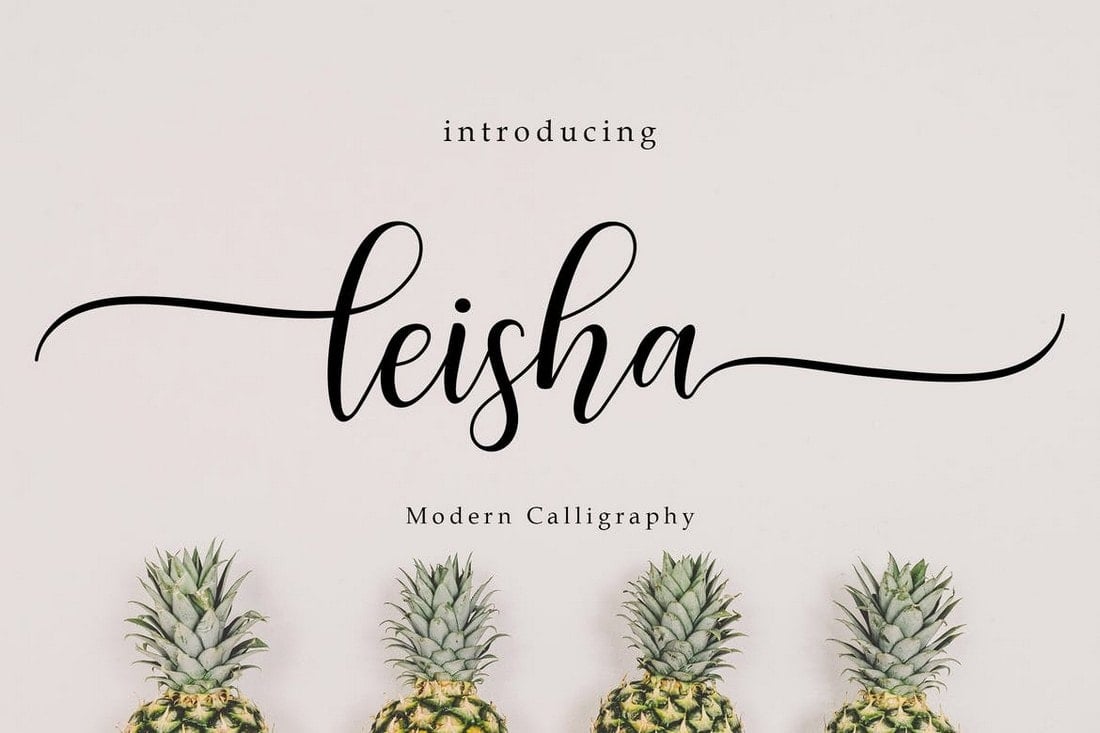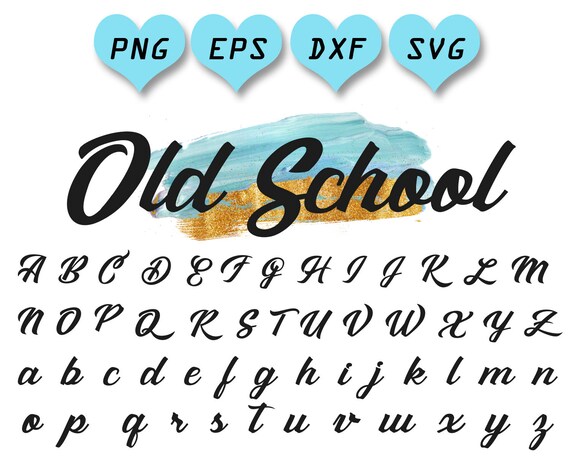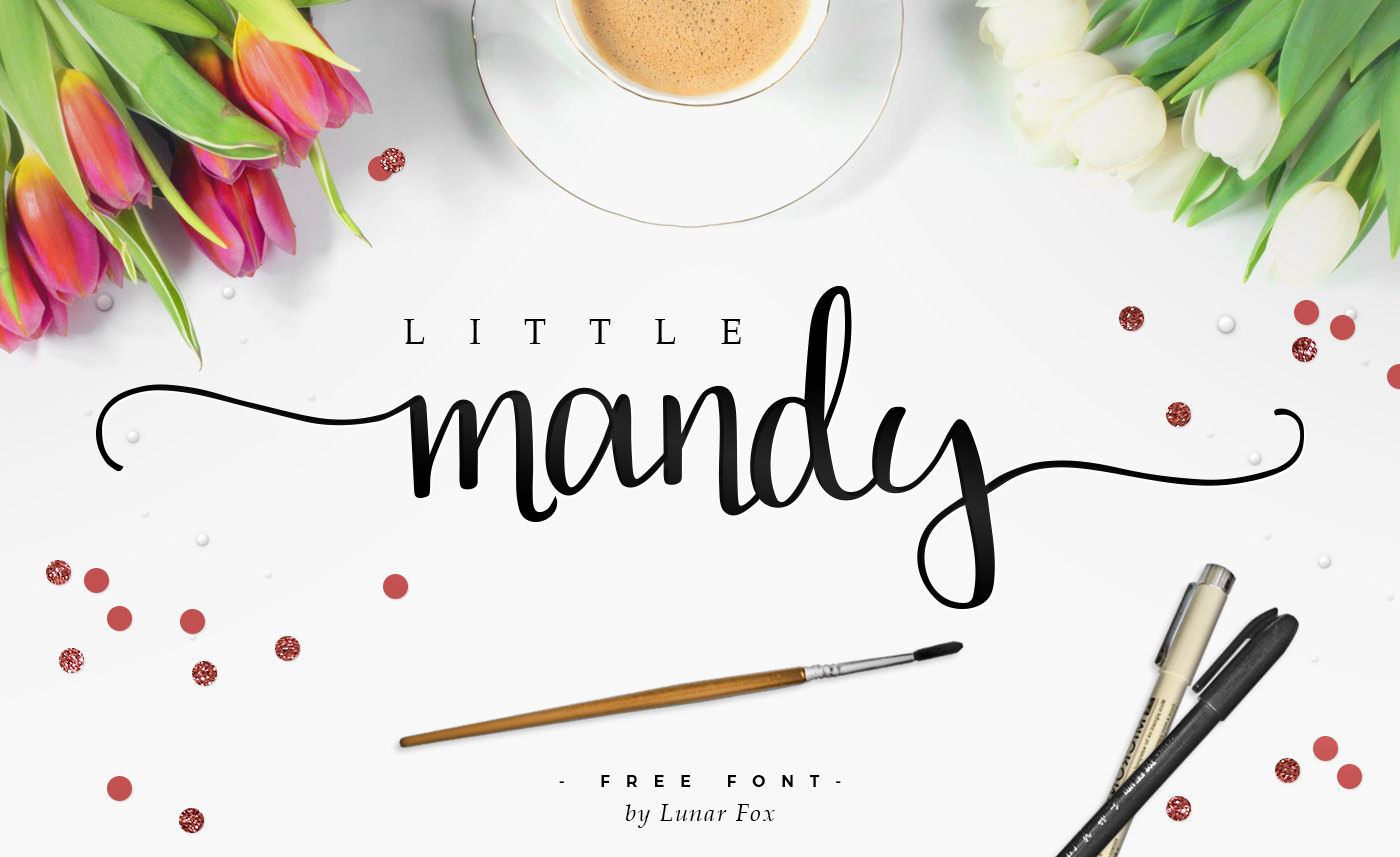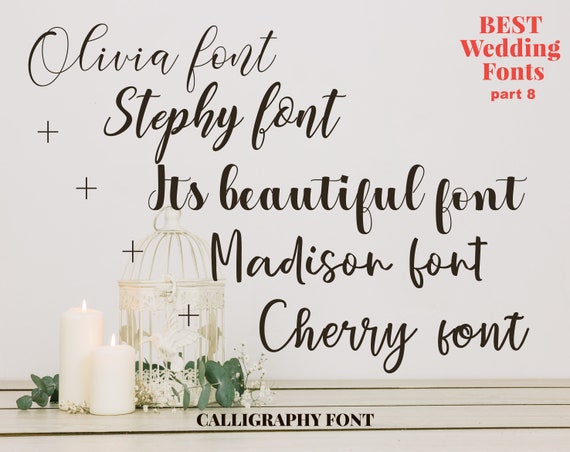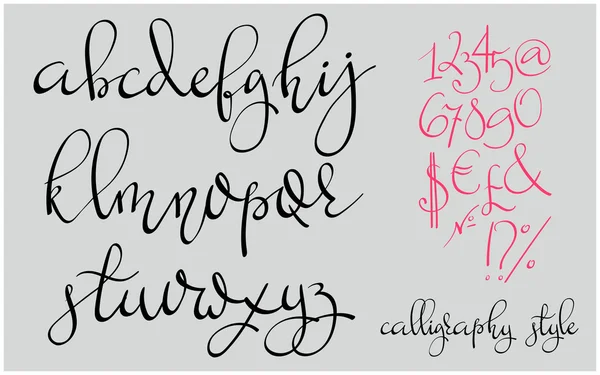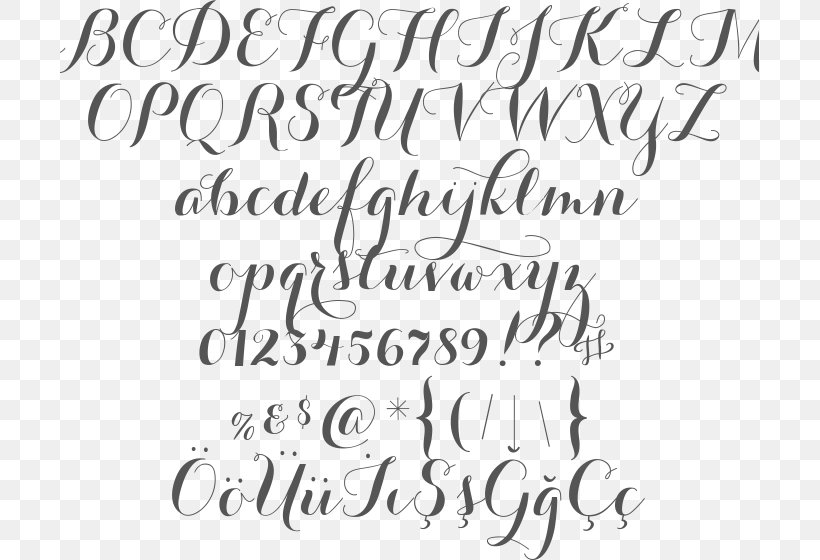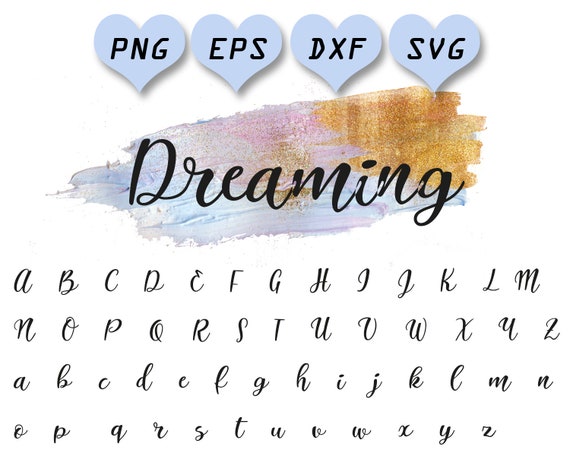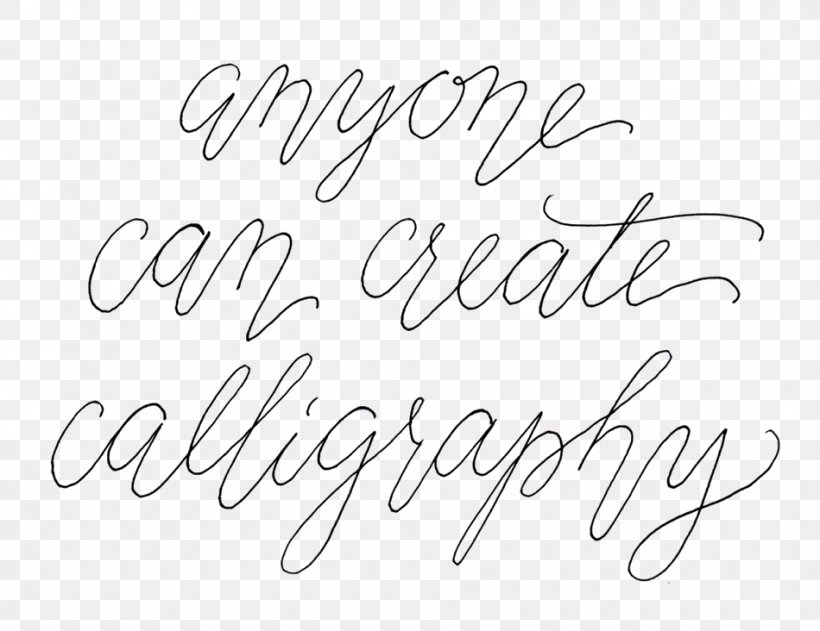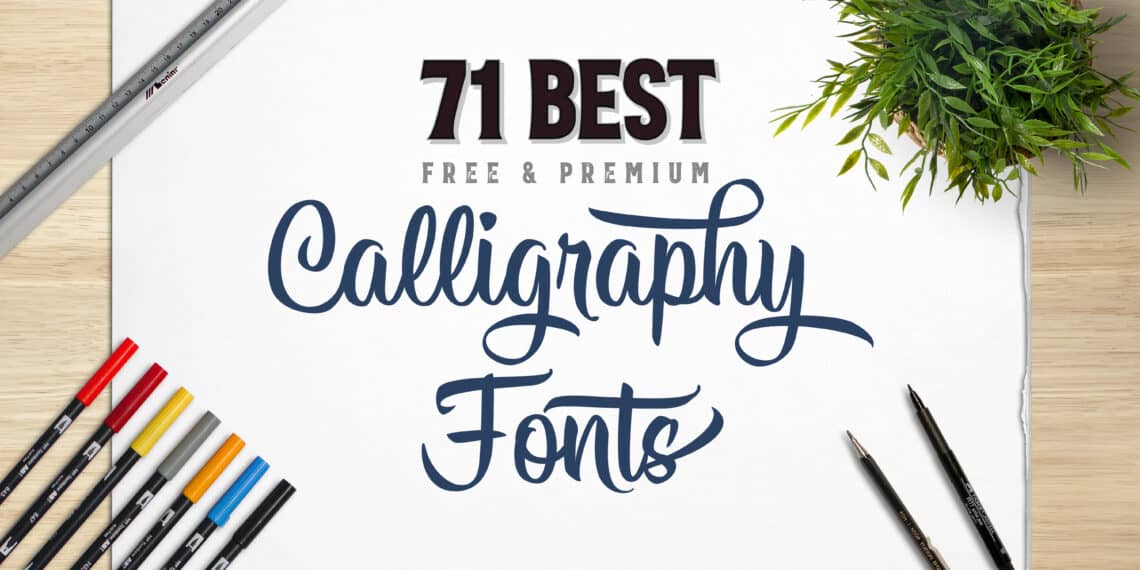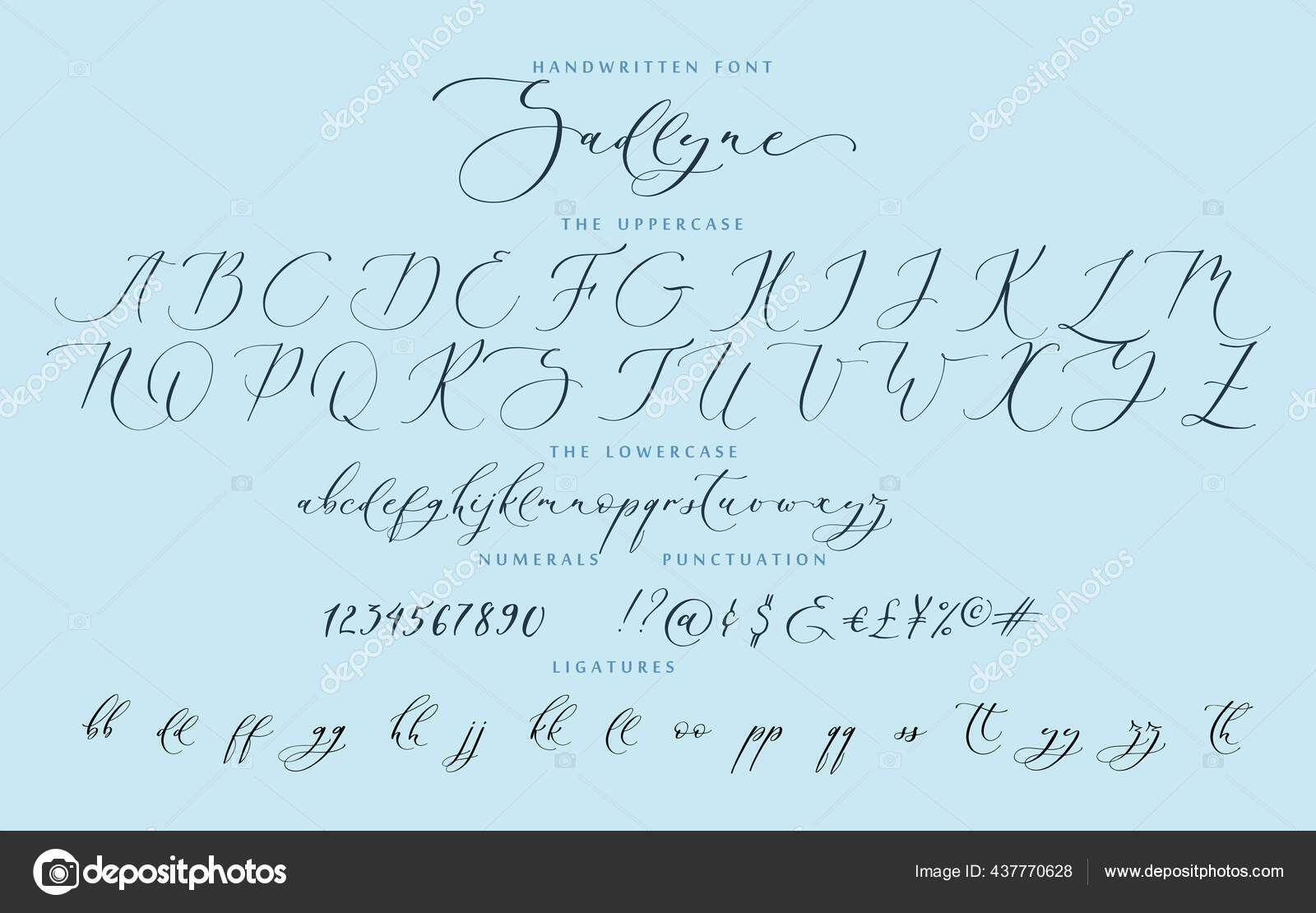
Cursive fonts simply emulate cursive handwriting in which letters are usually connected in a slanted and flowing manner. But any donation are very appreciated By installing or using this font you are agree to this Font Usage Agreement. The alternative characters were divided into several Open Type features such as Stylistic Sets.